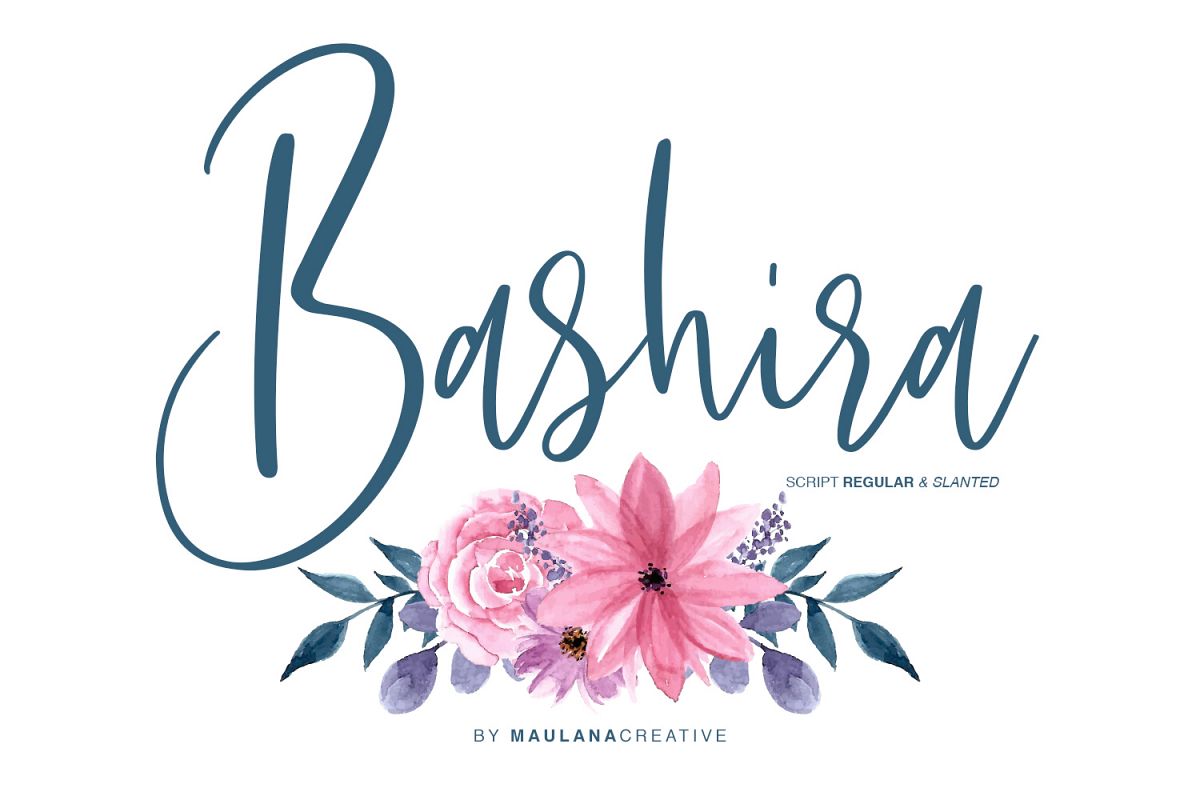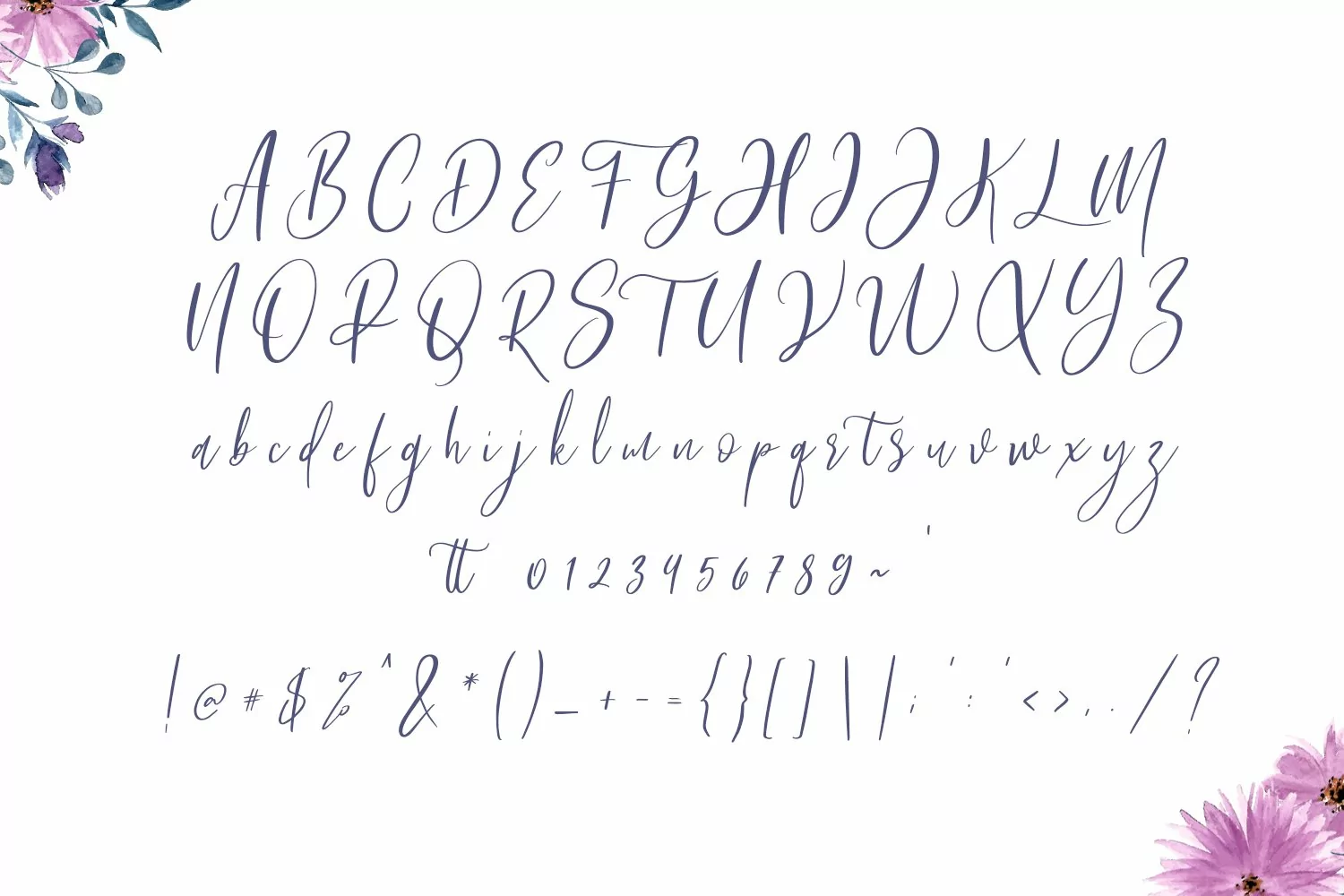
Give your designs an authentic handcrafted feel. "Bashira Brush Script" is perfectly suited to signature, stationery, logo, typography quotes, magazine or book cover, website header, clothing, branding, packaging design and more. Included Ligatures.